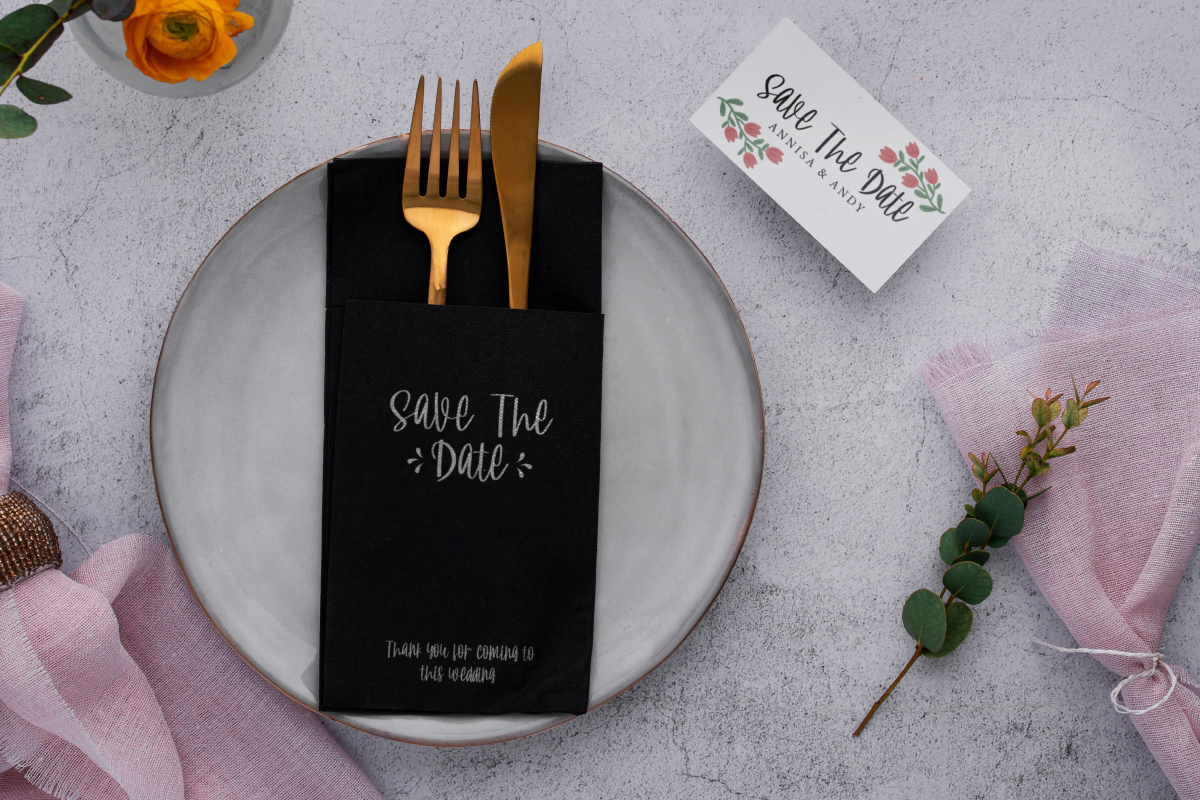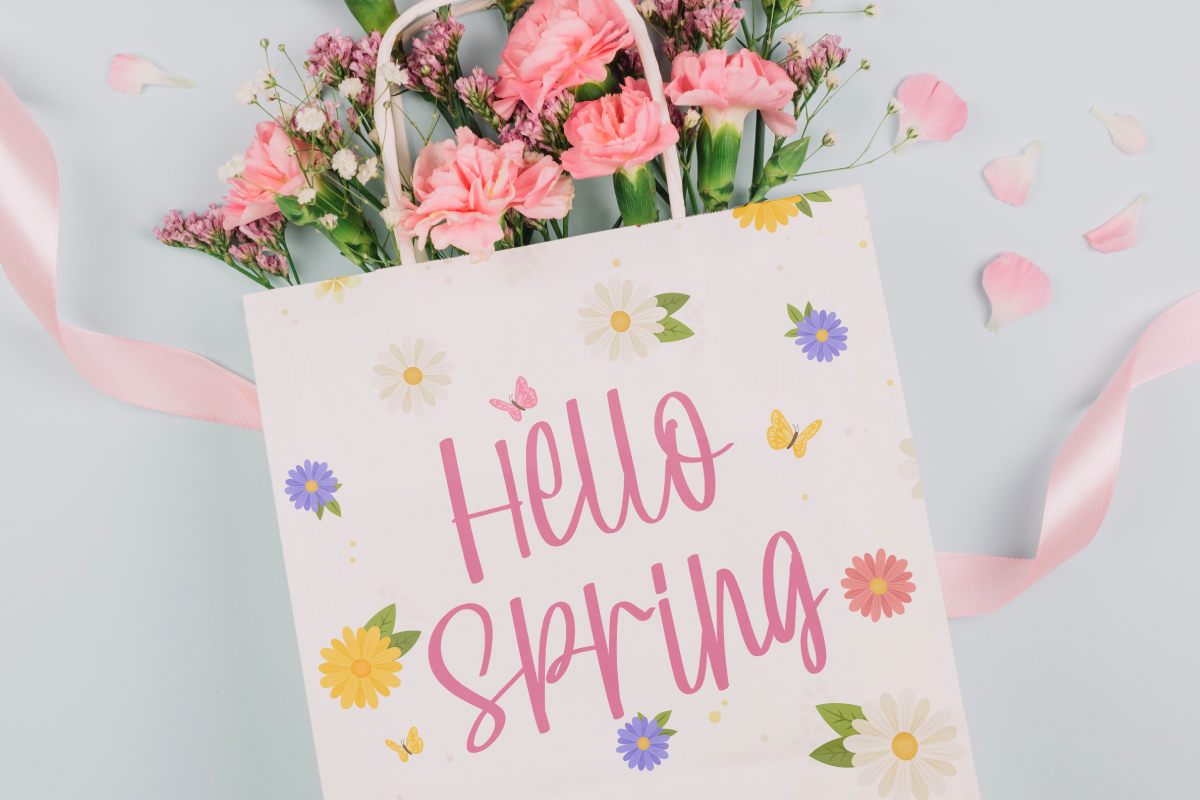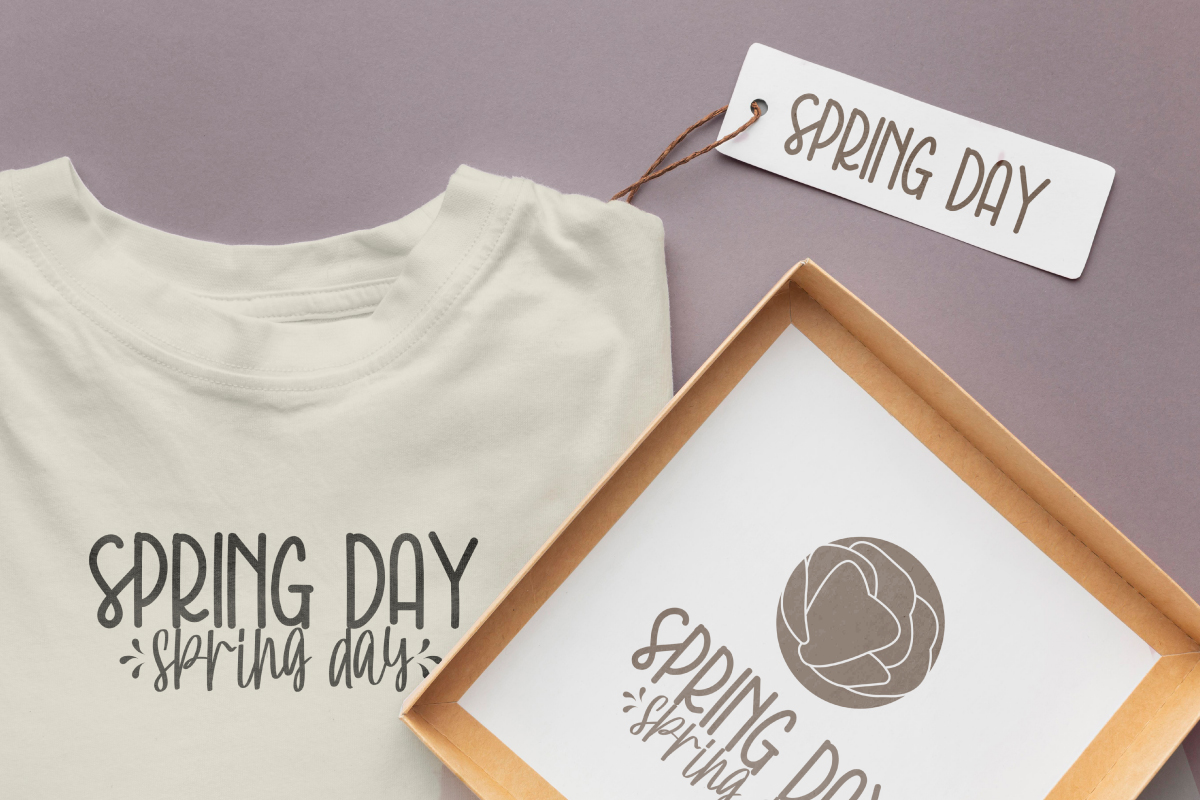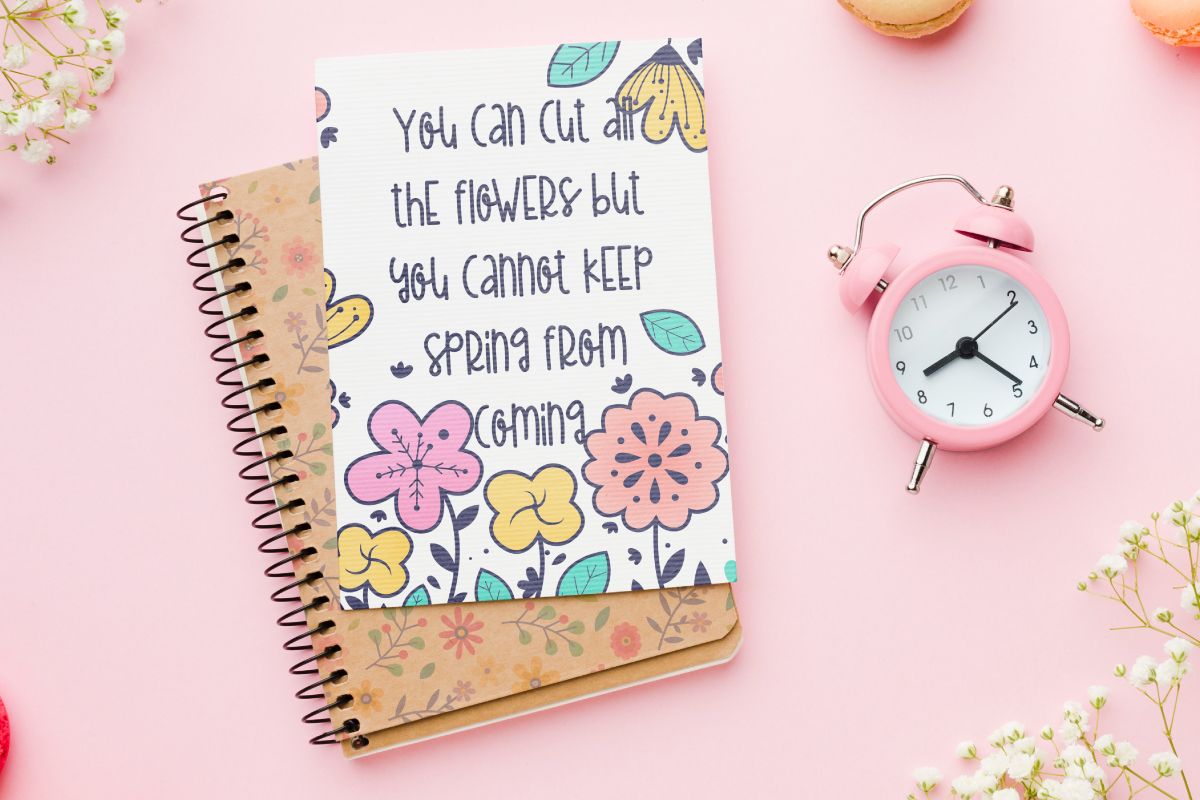
Spring Comedy Font
Spring Comedy Script Font
This is a uniquely beautiful font duo style designed by NoahType. The font comes with cute handwriting note and special display typeface. This font brings fun and sophisticated styles to another level. It will be amazing for any industry: boutique, craft, fashion, florist, kids stuff, wedding organizer, and more.
Spring Comedy Font includes full set of Uppercase and Lowercase Basic Characters, Numerals and Punctuation. This font brings a cheerful, elegant, and spring feel that flows together flawlessly. It will be perfect for any project: blog headers, gift, invitations, product packaging, quotes, title, and more.